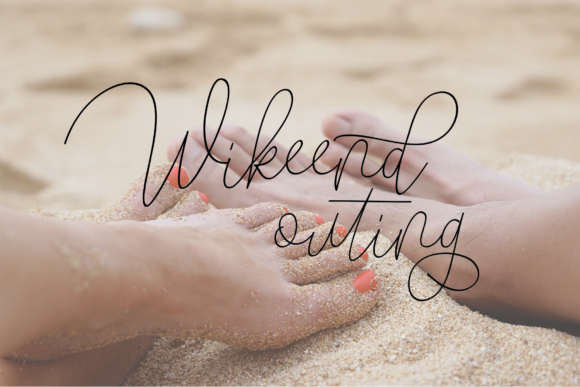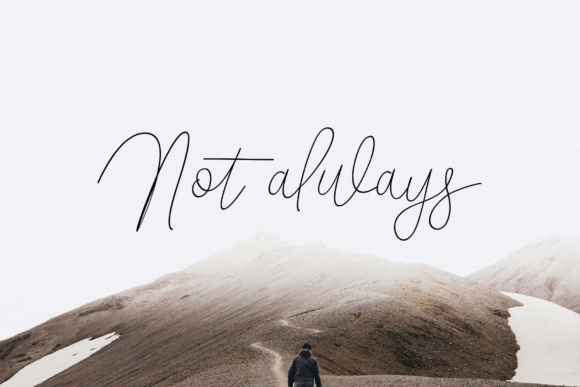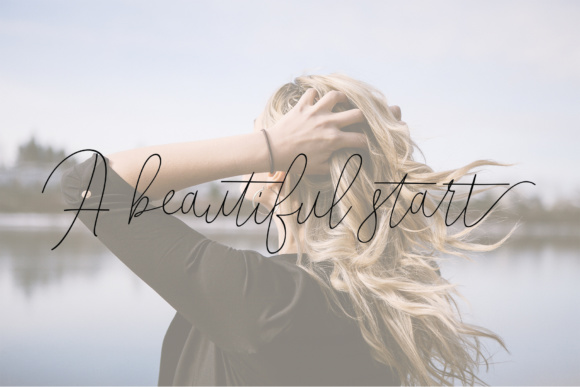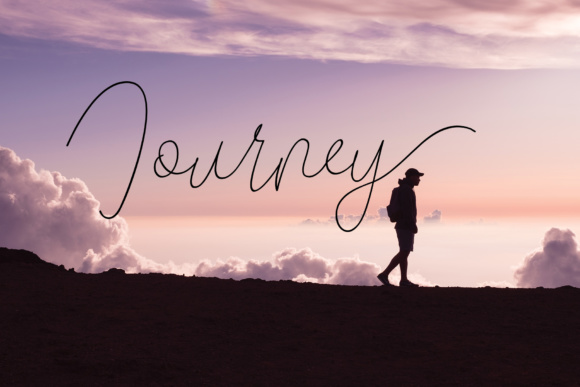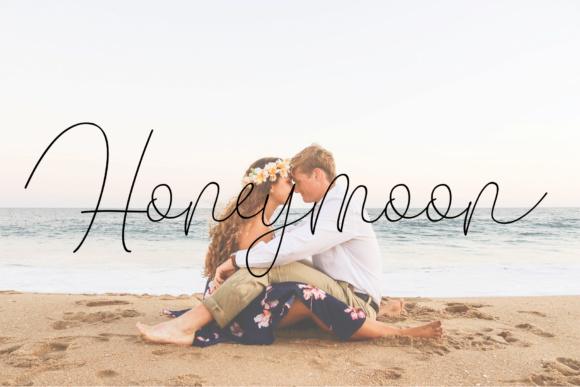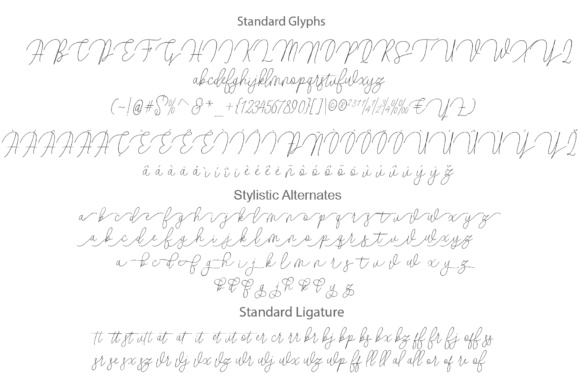
Butty Font
About Butty Font
Butty is a gorgeous, handwritten monoline font that will give your work an appealing and unique appeal. This font has a clean and refined look, and works well in a wide range of projects.